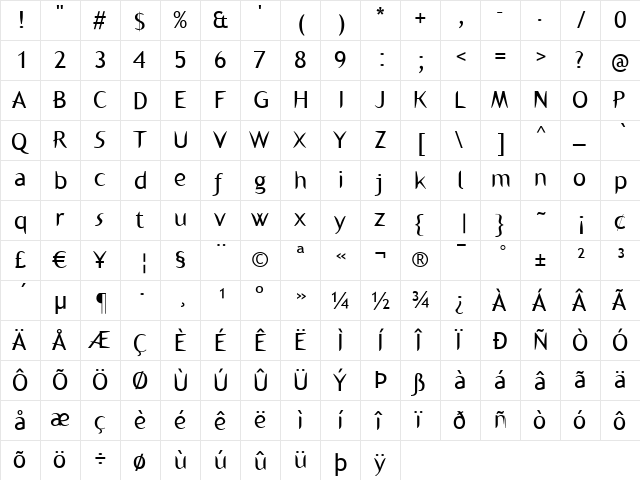
KL1BinAerfabet Regular
Design Context for KL1BinAerfabet Typeface
KL1BinAerfabet offers clean, dependable letterforms without strong stylistic allegiance, making it a practical choice for designers who need flexibility.
Pro Tip: Use KL1BinAerfabet in both headline and body roles to test its range before committing to a single application.